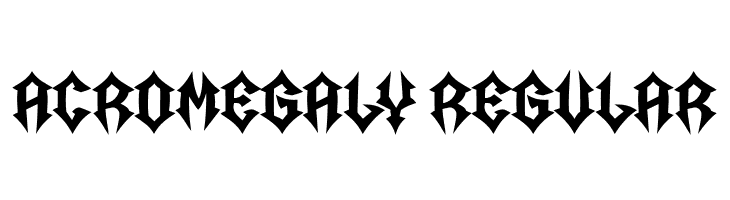
( Fonts by Iconian Fonts )
A modern, futuristic font with a gradient line effect and geometric shapes.
( Fonts by Iconian Fonts )
A futuristic, geometric font with a left-leaning italic style and unique cutouts.
( Fonts by Iconian Fonts )
A futuristic, italicized font with a 3D geometric design.
( Fonts by Iconian Fonts )
A sleek, futuristic italic font with thin, continuous lines and a modern aesthetic.
( Fonts by Iconian Fonts )
A modern, geometric font with a futuristic and technical design.
( Fonts by Iconian Fonts )
A futuristic, geometric font with clean lines and unique cut-out elements.
( Fonts by Iconian Fonts )
A modern, italic font with a gradient effect and sleek design.
( Fonts by Iconian Fonts )
A futuristic, expanded italic font with sleek, elongated characters.
( Fonts by Iconian Fonts )
A futuristic, geometric font with bold, italicized characters and unique cutouts.
( Fonts by Iconian Fonts )
A futuristic, geometric font with a semi-italic slant and sharp, clean lines.
( Fonts by Iconian Fonts )
A sleek, futuristic, condensed italic font with geometric forms.
( Fonts by Iconian Fonts )
A futuristic, geometric font with clean lines and unique cut-out elements.
( Fonts by Iconian Fonts )
A sleek, futuristic font with geometric, italicized letterforms and consistent stroke width.
( Fonts by Iconian Fonts )
A futuristic and geometric font with a clean, modern design.
( Fonts by Iconian Fonts )
A bold, angular font with a geometric and dynamic style.
( Fonts by Iconian Fonts )
A futuristic, angular font with a bold and dynamic style.
( Fonts by Iconian Fonts )
A bold, italicized font with angular, futuristic letterforms.
Tra i preferiti recenti: Poppins, Roboto, Montserrat, Open Sans e Lato. Bilanciano chiarezza e personalità; ideali per brand tech, editoriali e social.